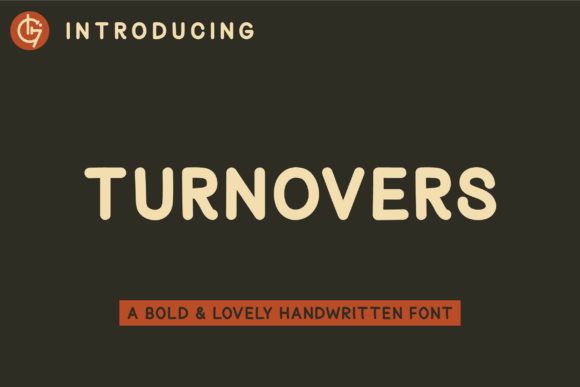
Turnovers Font: Make an Impact with a Handwritten Style
In the world of typography, fonts play a crucial role in conveying the tone and personality of a brand. With numerous font styles available, it can be challenging to find one that strikes the perfect balance between professionalism and approachability. However, if you’re looking for a font that combines a strong, bold presence with a charming, personal touch, look no further than Turnovers Font. In this article, we’ll explore the unique features of Turnovers Font and how it can elevate your branding, packaging, social media, and print designs.
What is Turnovers Font?
Turnovers Font is a handwritten font designed to make a lasting impact. Its unique style blends a strong, bold presence with a charming, personal touch, making it ideal for a wide range of design applications. Whether you’re looking to create a professional brand identity or add a touch of warmth and authenticity to your designs, Turnovers Font is the perfect choice.
Design Applications of Turnovers Font
Turnovers Font is a versatile font that can be used in various design applications, including:
- Branding: Create a strong brand identity with Turnovers Font. Its bold and charming style makes it perfect for logos, business cards, and letterheads.
- Packaging: Add a personal touch to your packaging designs with Turnovers Font. Its unique style will make your products stand out on store shelves.
- Social Media: Use Turnovers Font to create engaging social media content. Its approachable style will help you connect with your audience and build a strong online presence.
- Print: Turnovers Font is also suitable for print designs, such as brochures, flyers, and posters. Its bold style will grab attention and make your designs more impactful.
Benefits of Using Turnovers Font
Turnovers Font offers several benefits that make it an excellent choice for designers and brands. Some of the key benefits include:
- Unique Style: Turnovers Font has a unique style that sets it apart from other fonts. Its blend of bold and charming elements makes it perfect for brands looking to create a strong identity.
- Warmth and Authenticity: Turnovers Font adds a touch of warmth and authenticity to any design. Its handwritten style creates a personal connection with the audience, making it ideal for brands looking to build a strong emotional connection with their customers.
- Professional yet Approachable: Turnovers Font strikes the perfect balance between professionalism and approachability. Its bold style makes it perfect for professional designs, while its charming elements add a touch of approachability.
- Versatility: Turnovers Font is a versatile font that can be used in various design applications. Its flexibility makes it an excellent choice for designers who need a font that can adapt to different design requirements.
Tips for Using Turnovers Font
To get the most out of Turnovers Font, here are some tips to keep in mind:
- Use it as a Headline Font: Turnovers Font is perfect for headlines and titles. Its bold style makes it easy to read and will grab attention.
- Pair it with a Simple Font: To create visual interest, pair Turnovers Font with a simple font. This will create a nice contrast and make your designs more engaging.
- Experiment with Colors: Turnovers Font looks great in various colors. Experiment with different colors to find the one that works best for your brand.
- Use it Consistently: To create a strong brand identity, use Turnovers Font consistently across all your designs. This will help you build recognition and make your brand more memorable.
In conclusion, Turnovers Font is a unique and versatile font that can elevate your branding, packaging, social media, and print designs. Its blend of bold and charming elements makes it perfect for brands looking to create a strong identity that resonates with their audience. With its warmth and authenticity, Turnovers Font is an excellent choice for designers and brands looking to build a strong emotional connection with their customers. By following the tips outlined in this article, you can get the most out of Turnovers Font and create designs that make a lasting impact.